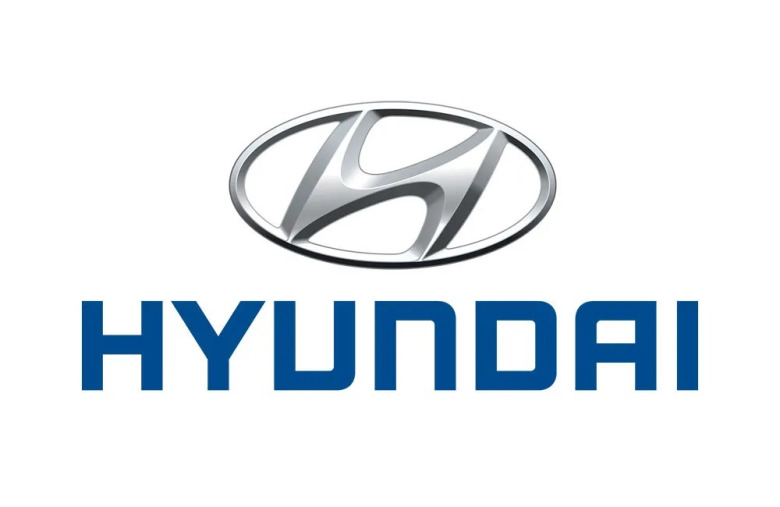
Hyundai Font
Hyundai Motor Company is a Korean automobile manufacturer. It is also the fourth largest automakers in the world after Toyota, GM and Volkswagen currently. Hyundai in Korean means “modern” or “contemporary”.
The Hyundai logo is a stylized H, symbolizing Hyundai, set in an oval, with the word “HYUNDAI” below. A free font called Hyundai Normal was created by Samuel Park to imitate the lettering.
Hyundai Logo Font